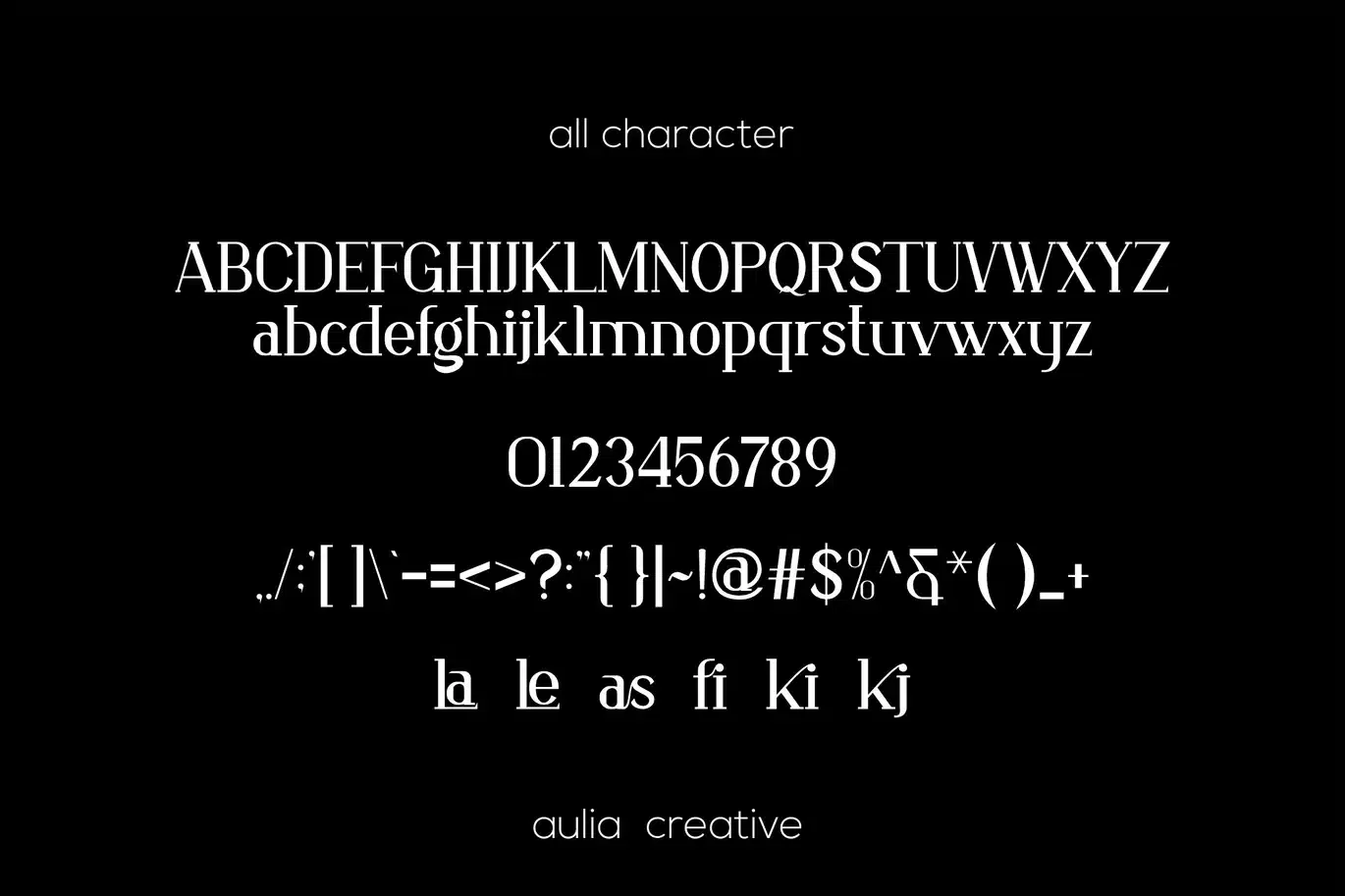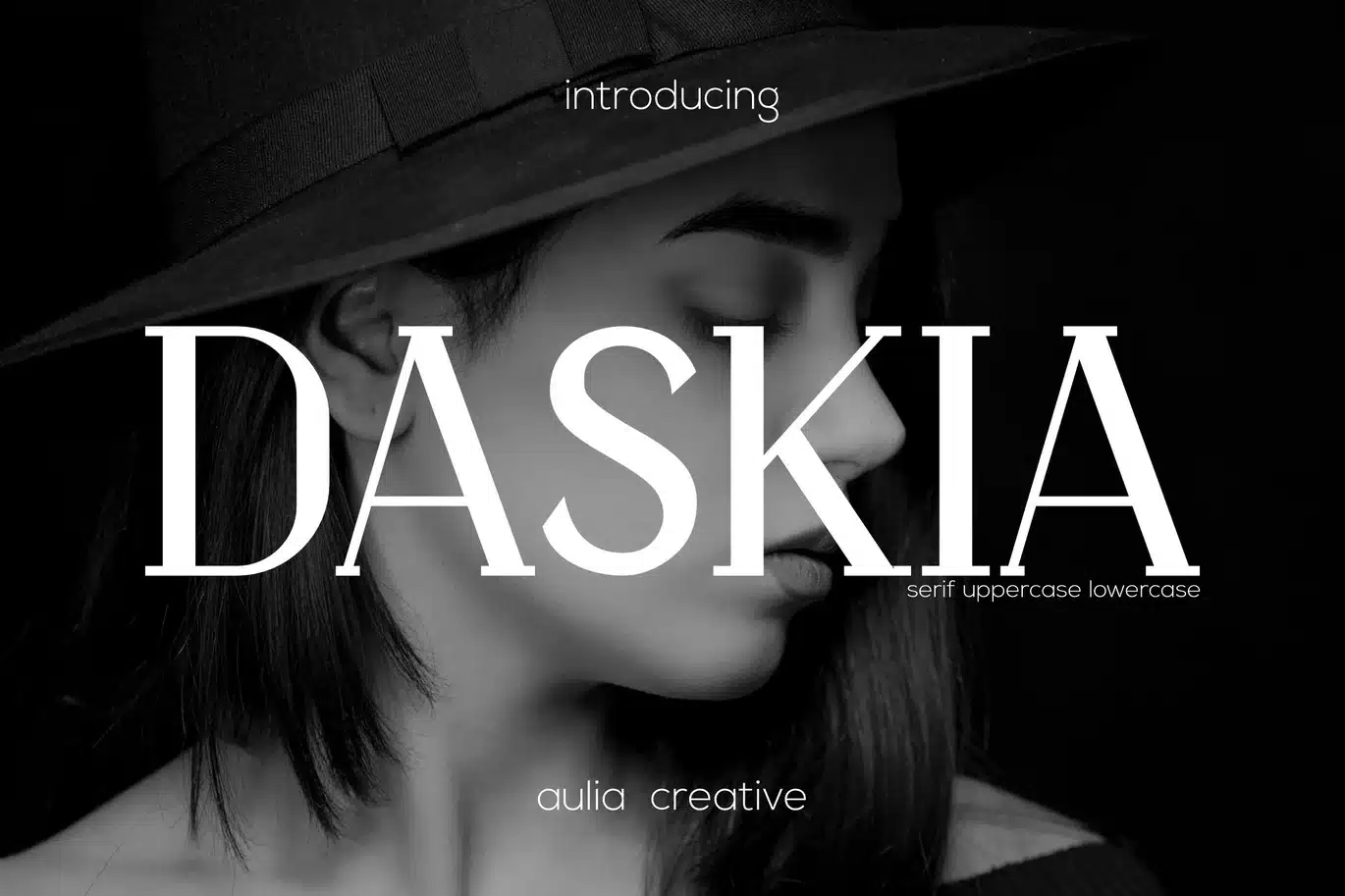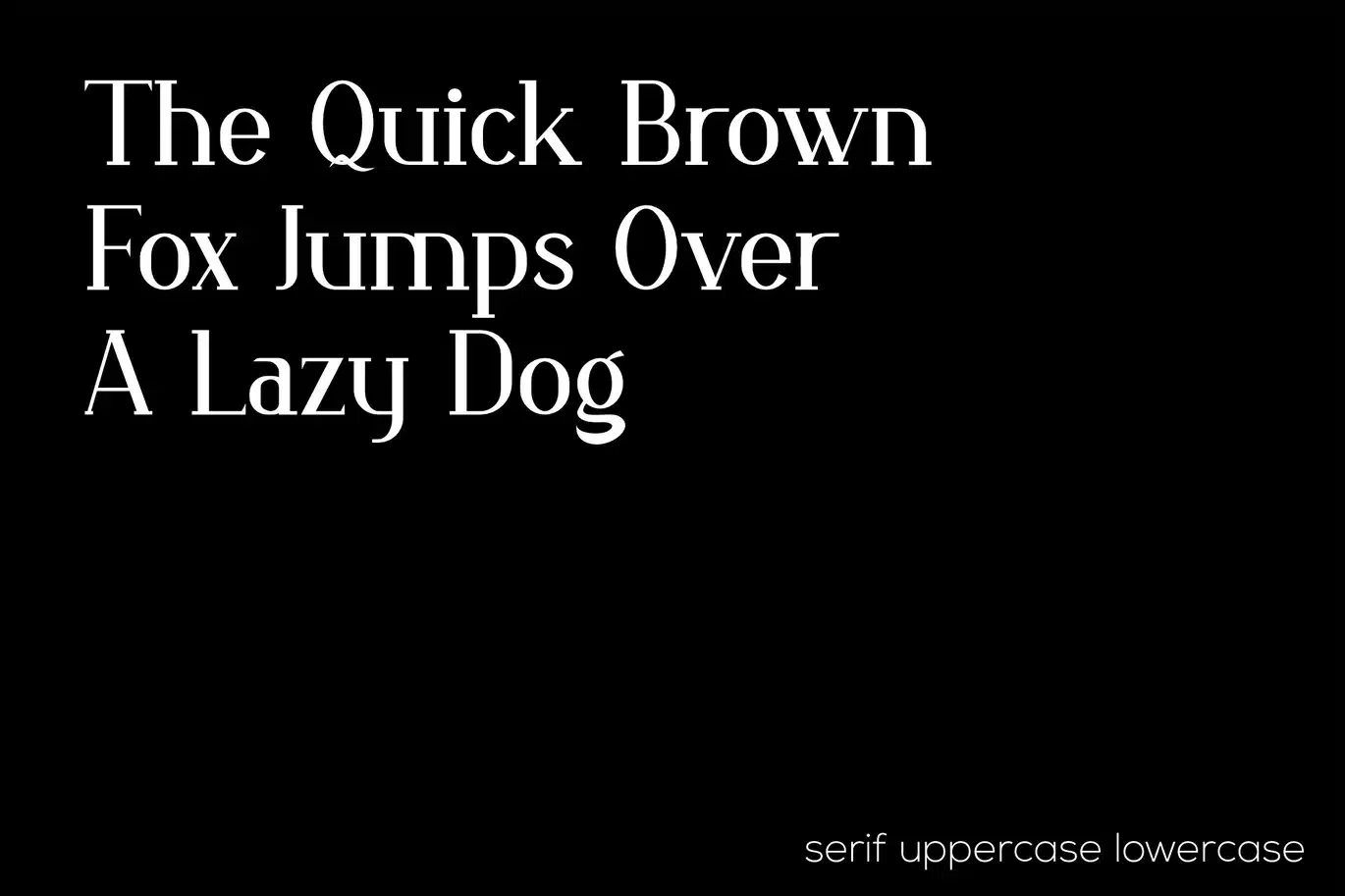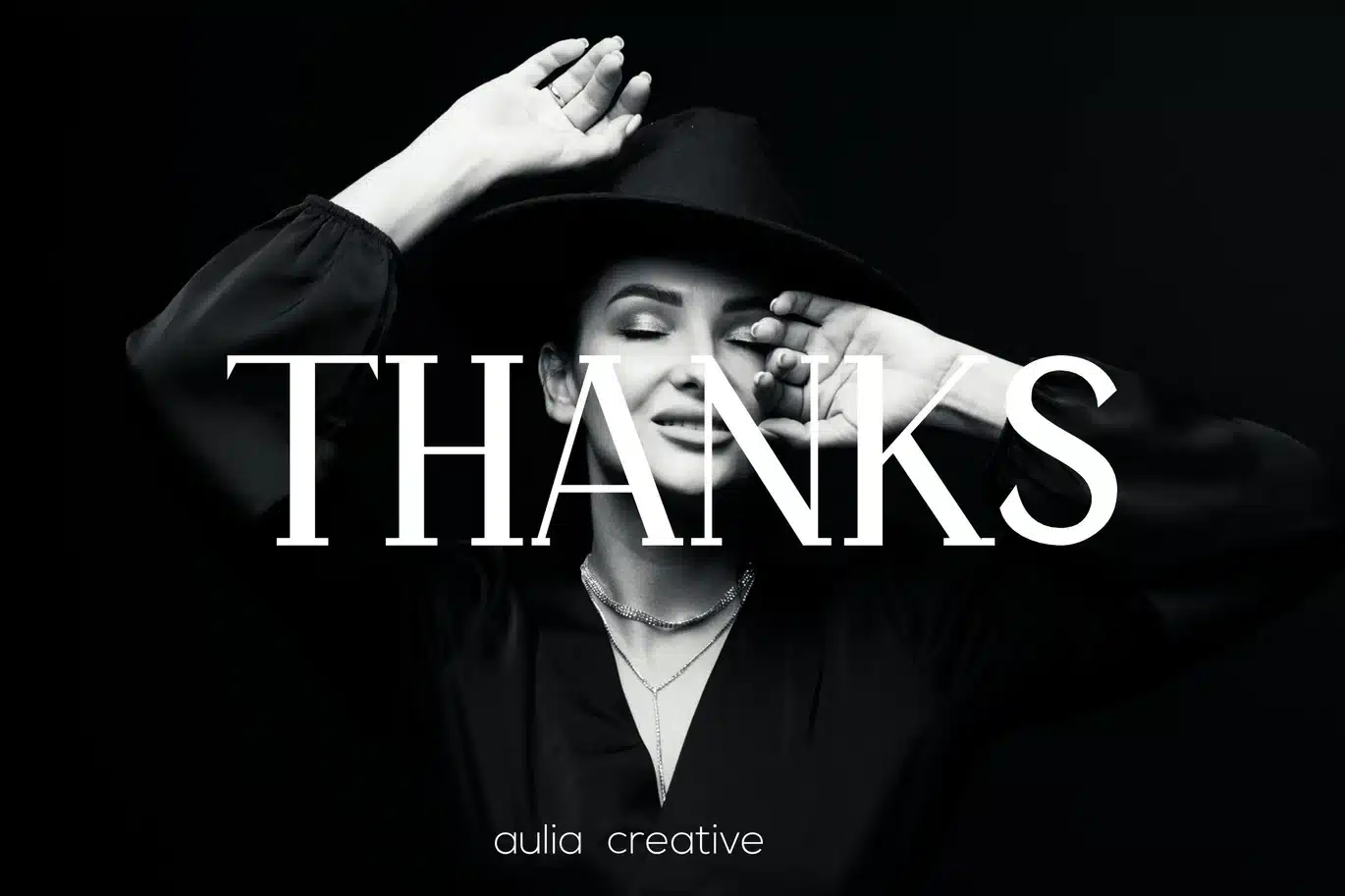
Daskia – Serif Display Font
Introducing our new product Daskia - Serif Display
Daskia - Serif Display Font is and awesome and authentic display font.
- Number & Symbol
- UPPERCASE, lowercase
- Legature